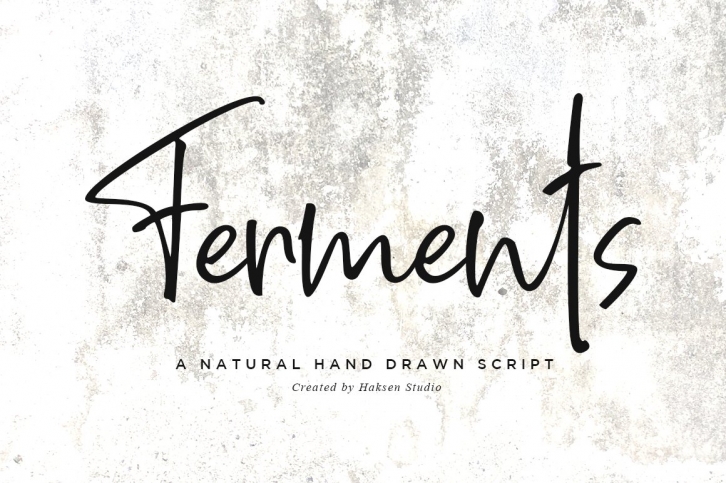
Ferments // Handwritten Scripts FONT Download
Ferments is a stylish modern and natural handwritten script font with casual chic flair. It is perfect for branding, wedding invites and cards, and maybe for red wine label.
Ferments includes full set of Natural uppercase and lowercase letters, numerals, a large range of punctuation and ligatures.